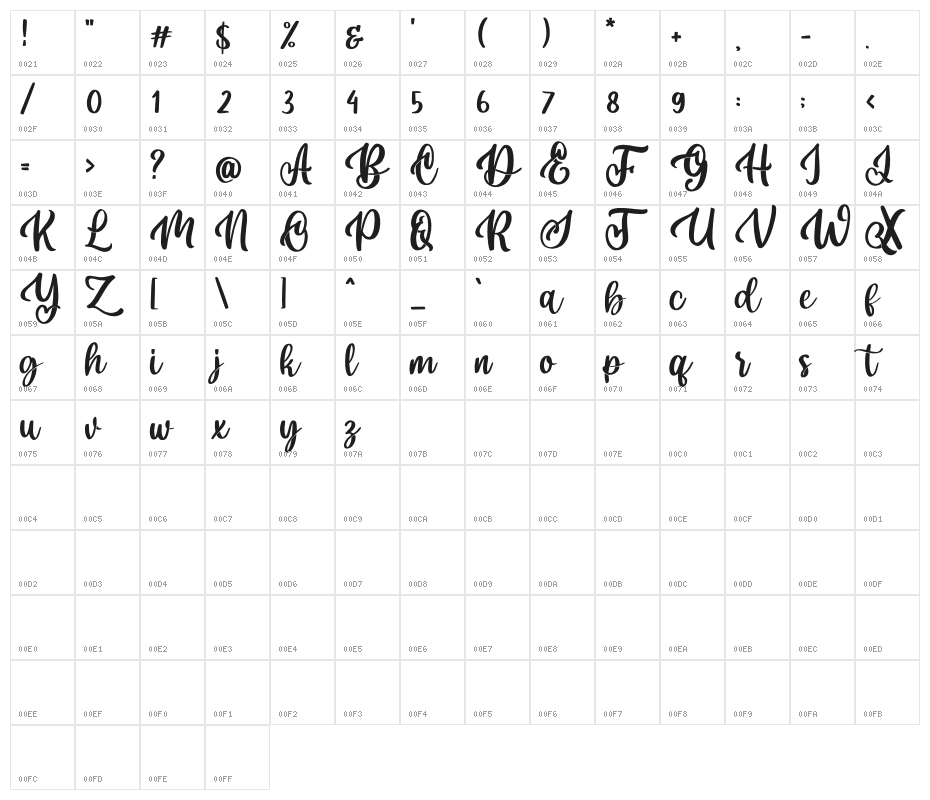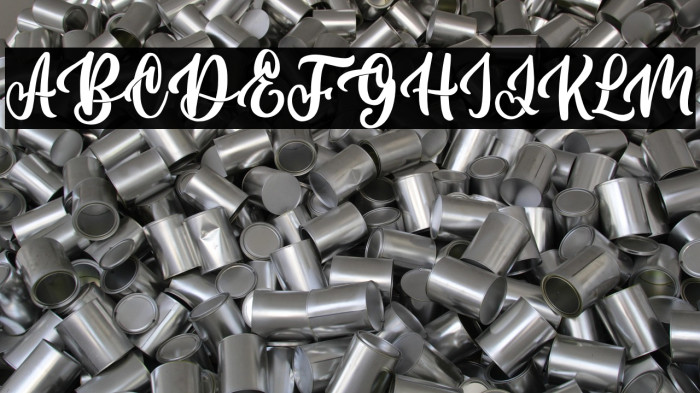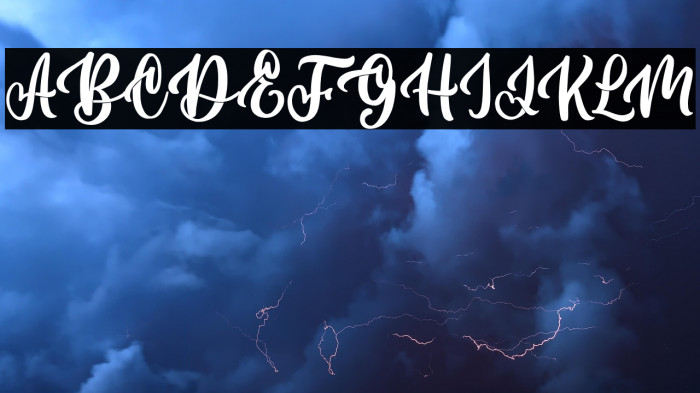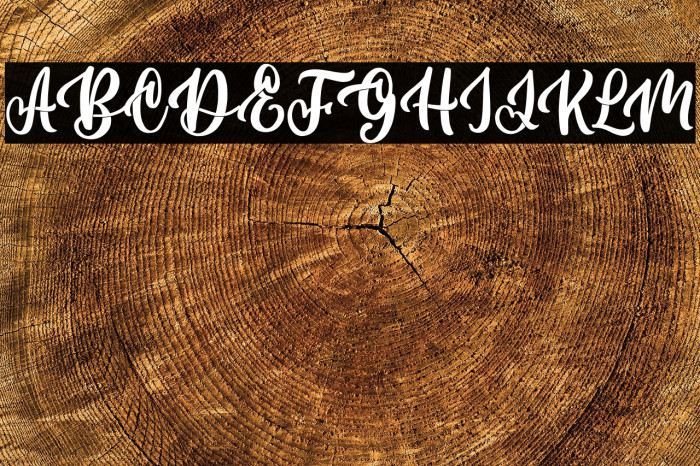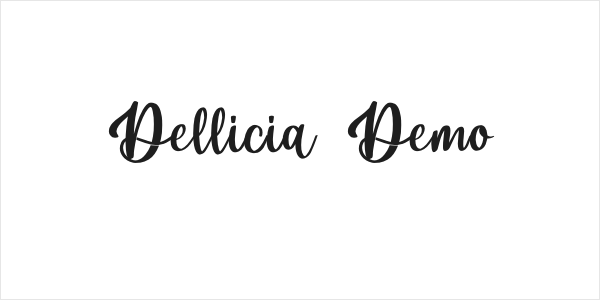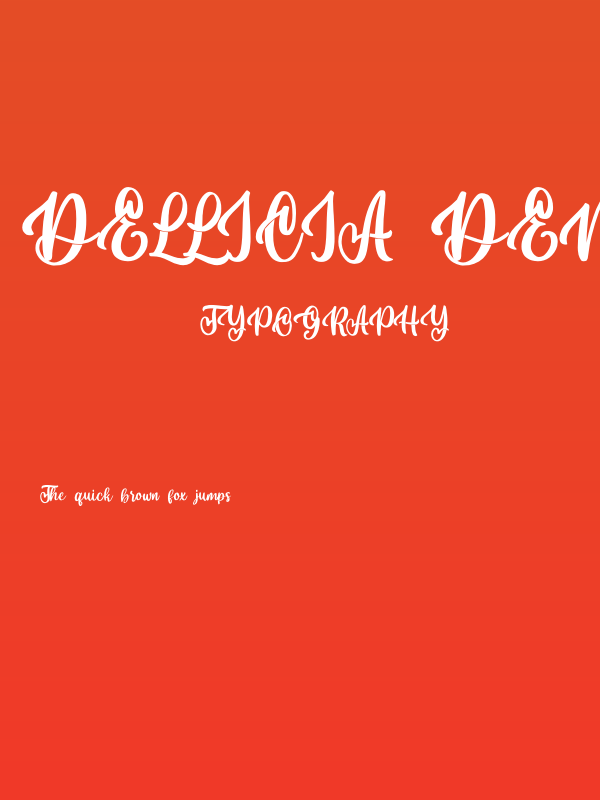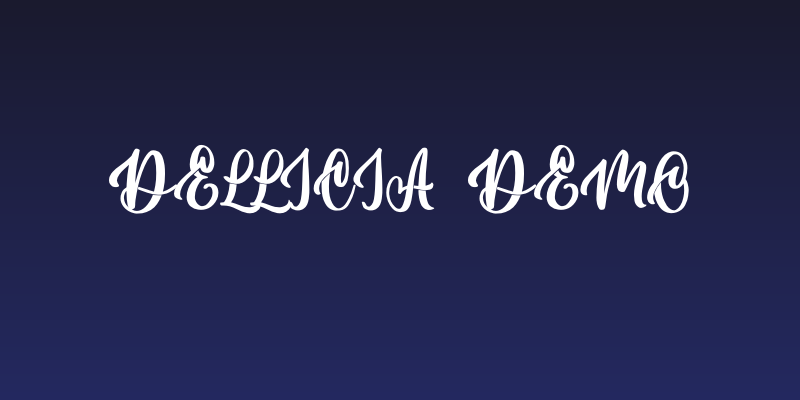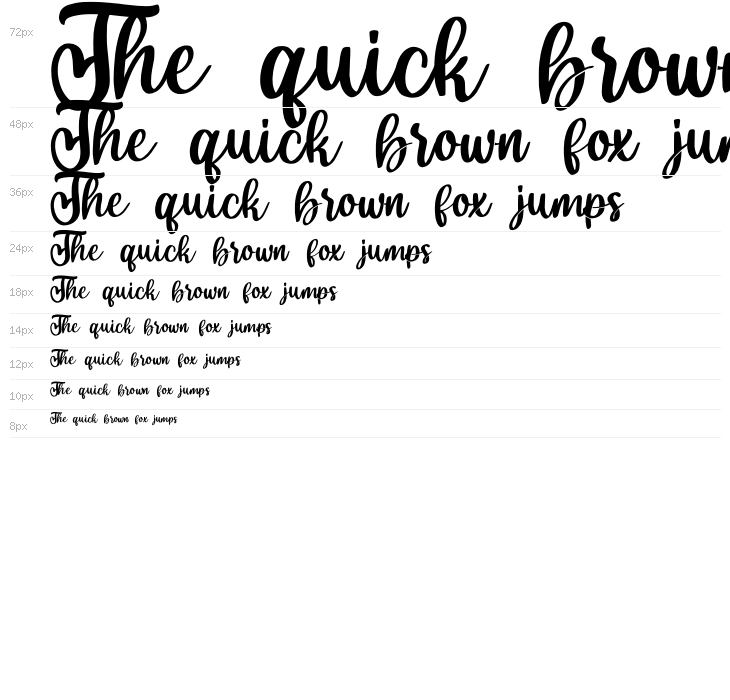
Dellicia Demo Font
Dellicia Demo Description
This font features a flowing, cursive style with a modern twist. The uppercase letters are bold and expressive, with intricate loops and swirls that add a touch of elegance. The lowercase letters maintain a consistent flow, connecting smoothly to create a harmonious script. Numbers and special characters are designed to match the overall aesthetic, ensuring a cohesive look across all text elements. The font's playful yet sophisticated appearance makes it suitable for a variety of creative projects.